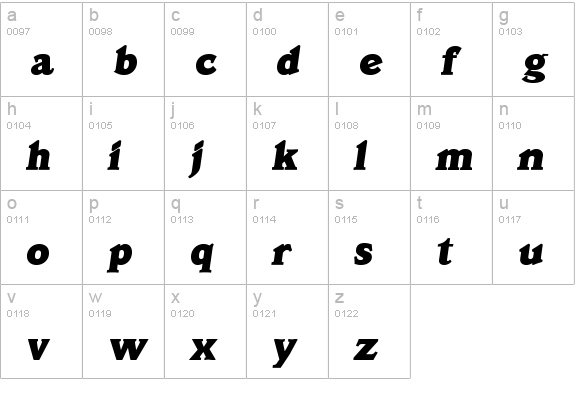
Veracruz-ExtraBoldIta is a bold and elegant font that exudes confidence and sophistication. With its thick strokes and slanted italics, this font is perfect for making a bold statement in any design project. The Veracruz-ExtraBoldIta font is not only visually striking, but also incredibly versatile. It can be used in a wide range of creative projects, including logos, headlines, posters, and branding materials. Its unique blend of boldness and elegance makes it a standout choice for designers looking to make a lasting impression. One of the best features of Veracruz-ExtraBoldIta is that it is absolutely free to download. You can easily access this font at FontsMarket.com, where you can explore a vast collection of high-quality and professionally designed fonts. Whether you are a professional designer or a casual enthusiast, Veracruz-ExtraBoldIta is a must-have font in your toolkit. With its sleek and eye-catching design, Veracruz-ExtraBoldIta will instantly elevate your designs and captivate your audience. Its free availability at FontsMarket.com makes it easily accessible for designers of all levels, ensuring that everyone can enjoy the benefits of this extraordinary font. So why wait? Download Veracruz-ExtraBoldIta today and let your creativity soar to new heights. Its boldness, elegance, and free availability make it a font that you simply can't afford to miss out on.